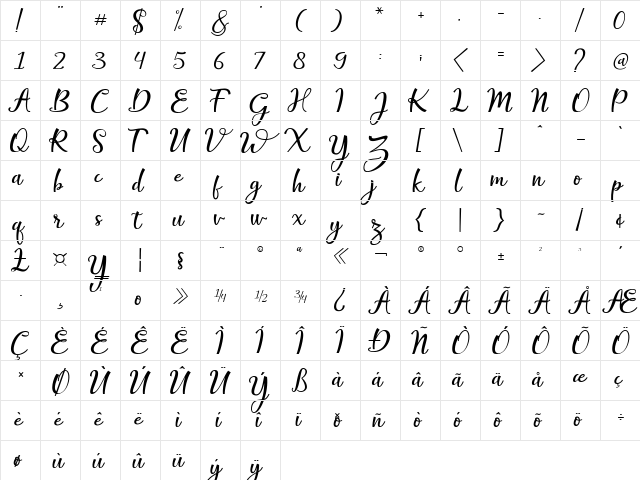
fantabulous script Regular
| Foundry | Akifatype Studio |
| Designer | Akifatype Studio |
Design Context for fantabulous script Typeface
fantabulous script brings a calligraphic fluidity to the page — its connecting strokes and expressive curves give it an unmistakably human quality.
Font Pairing: Combine fantabulous script with a simple geometric sans for maximum contrast — the tension between flowing curves and clean structure is a classic typographic pairing.
Pro Tip: Pair fantabulous script with a clean sans-serif for supporting text. The contrast between fluid script and geometric structure creates an elegant typographic hierarchy.